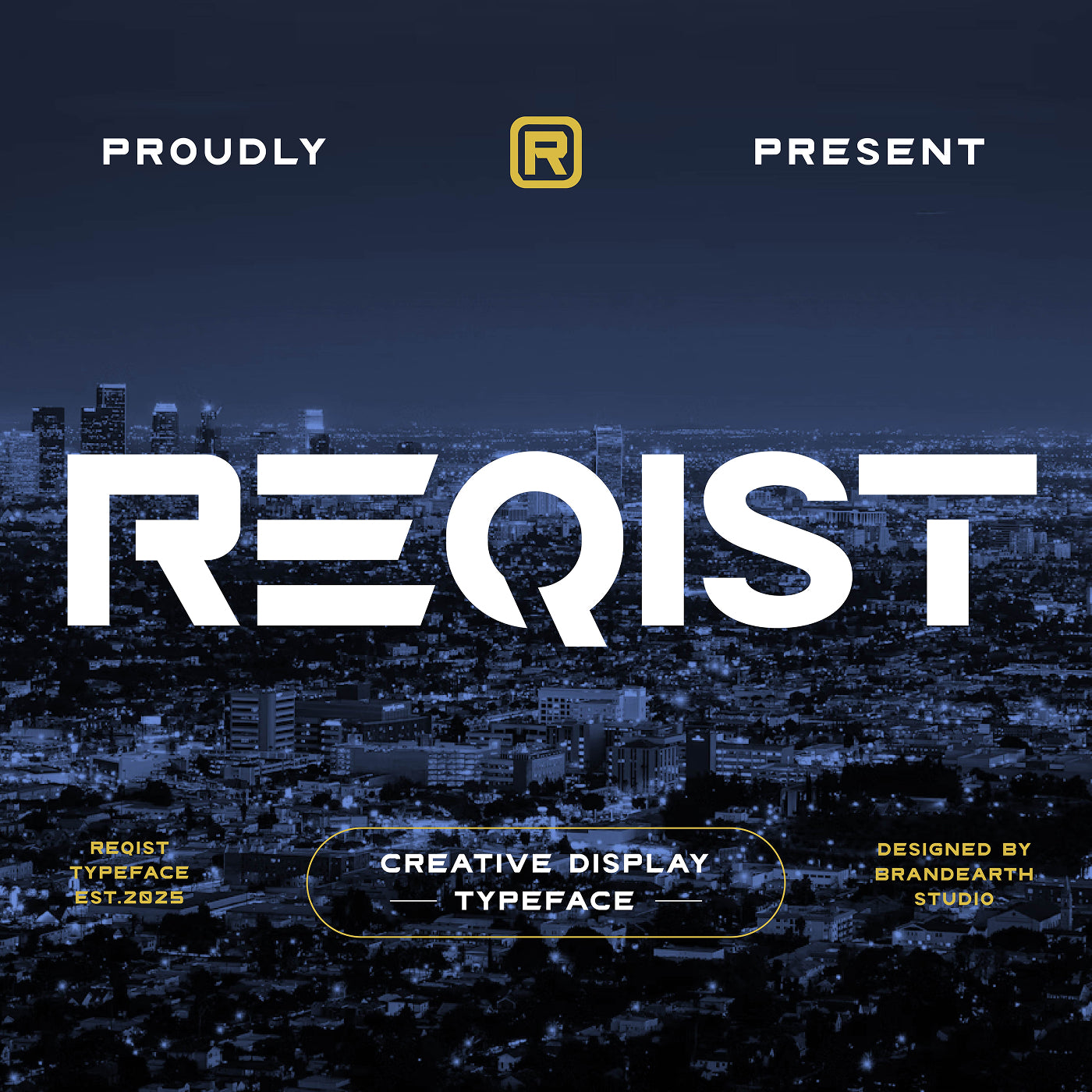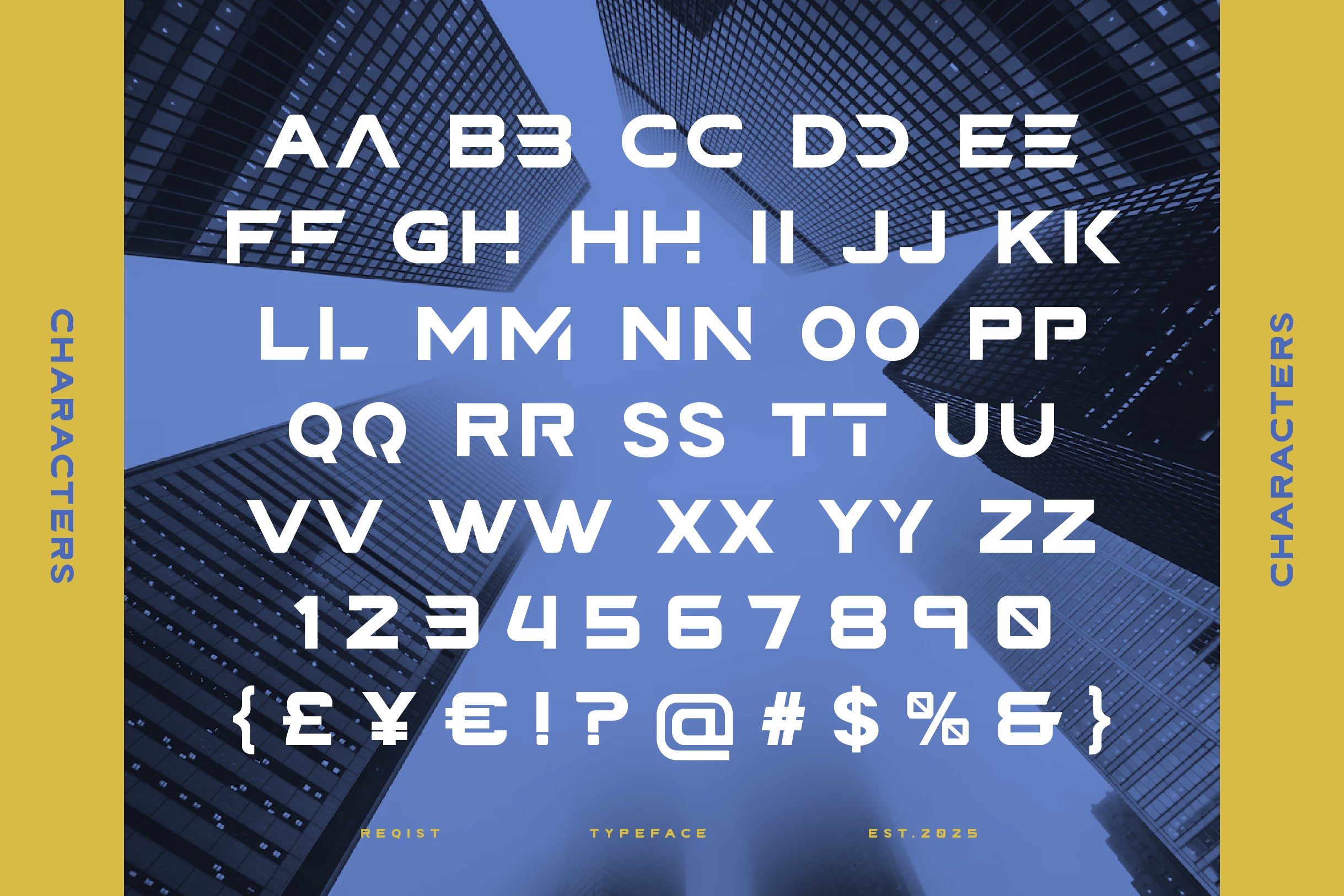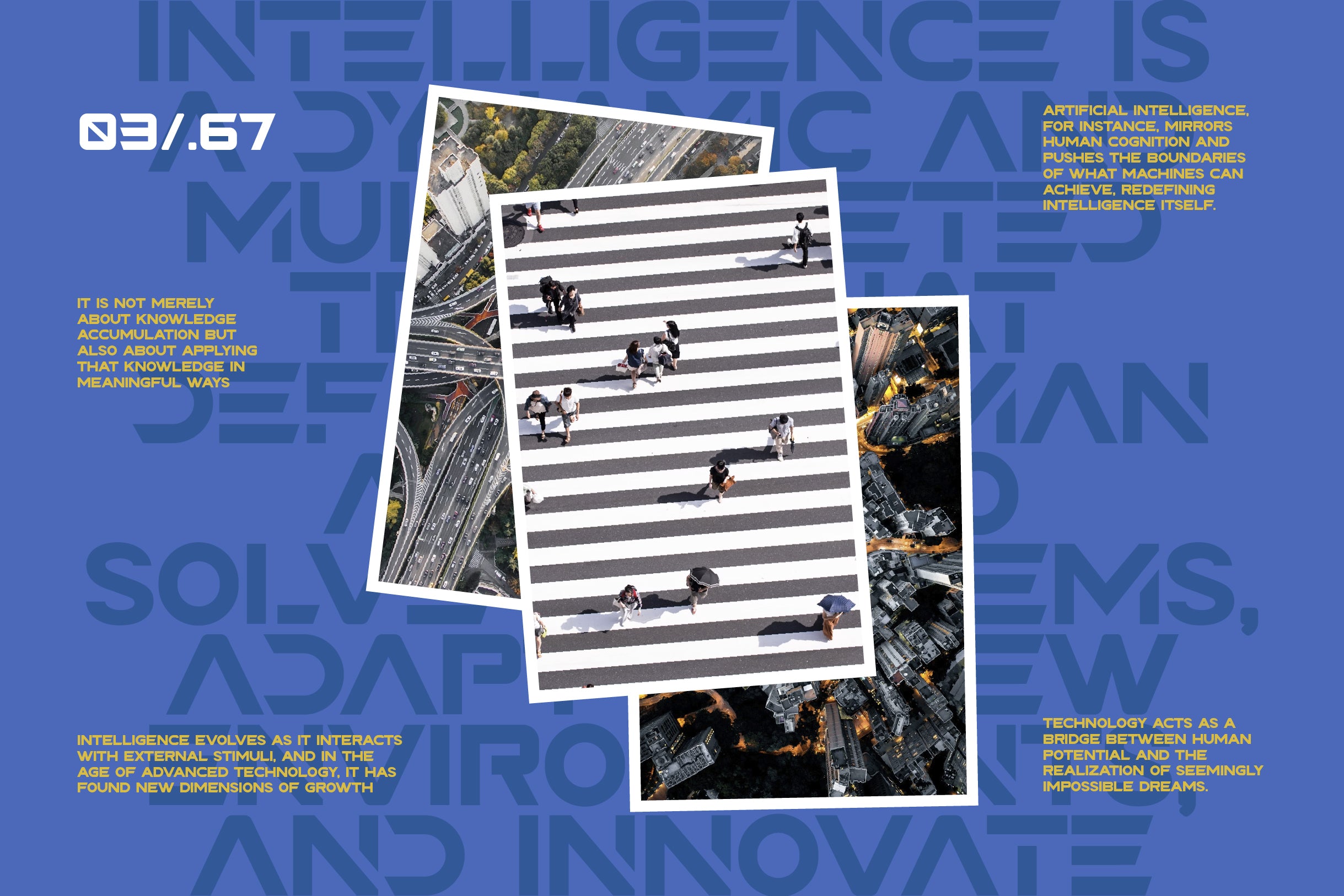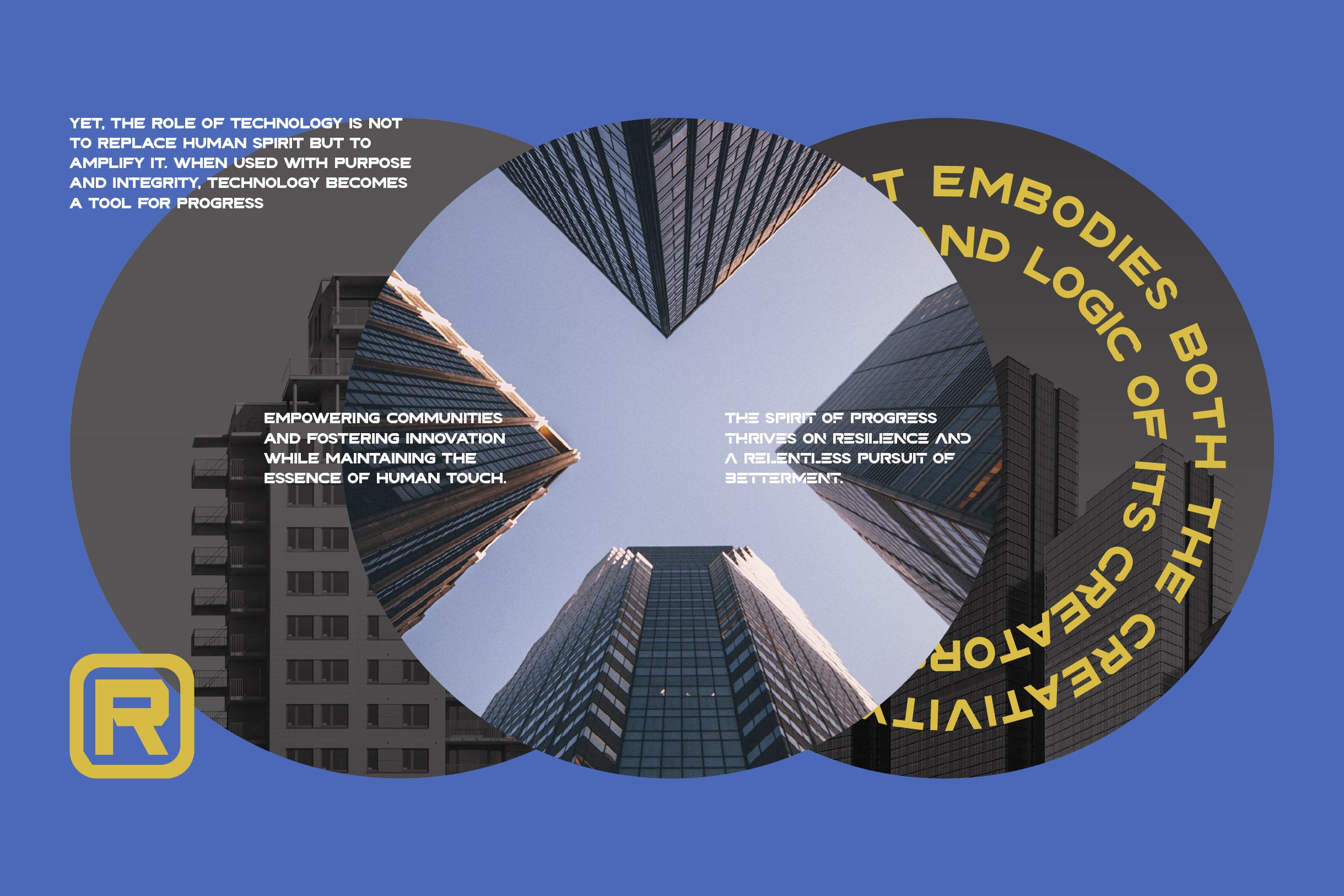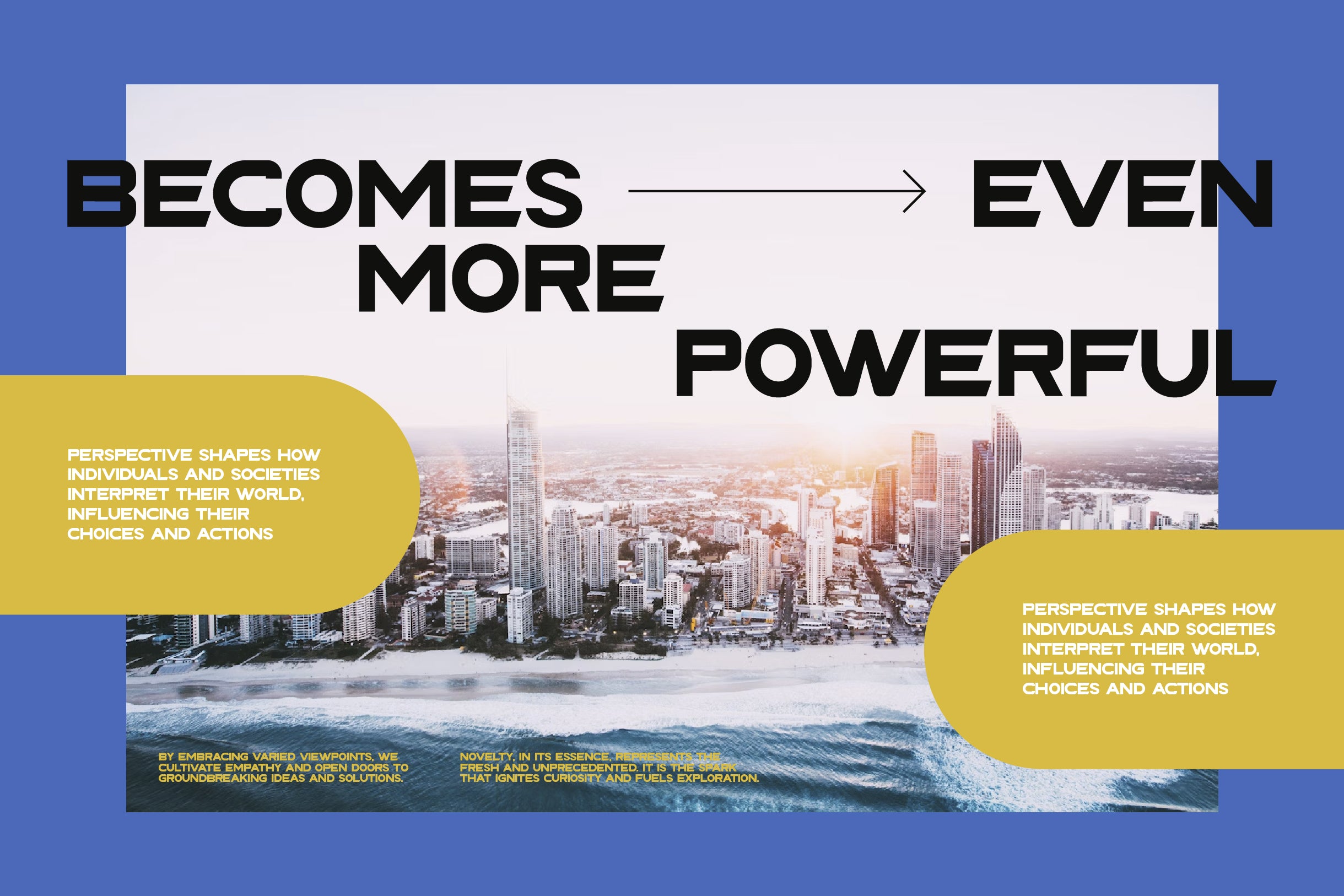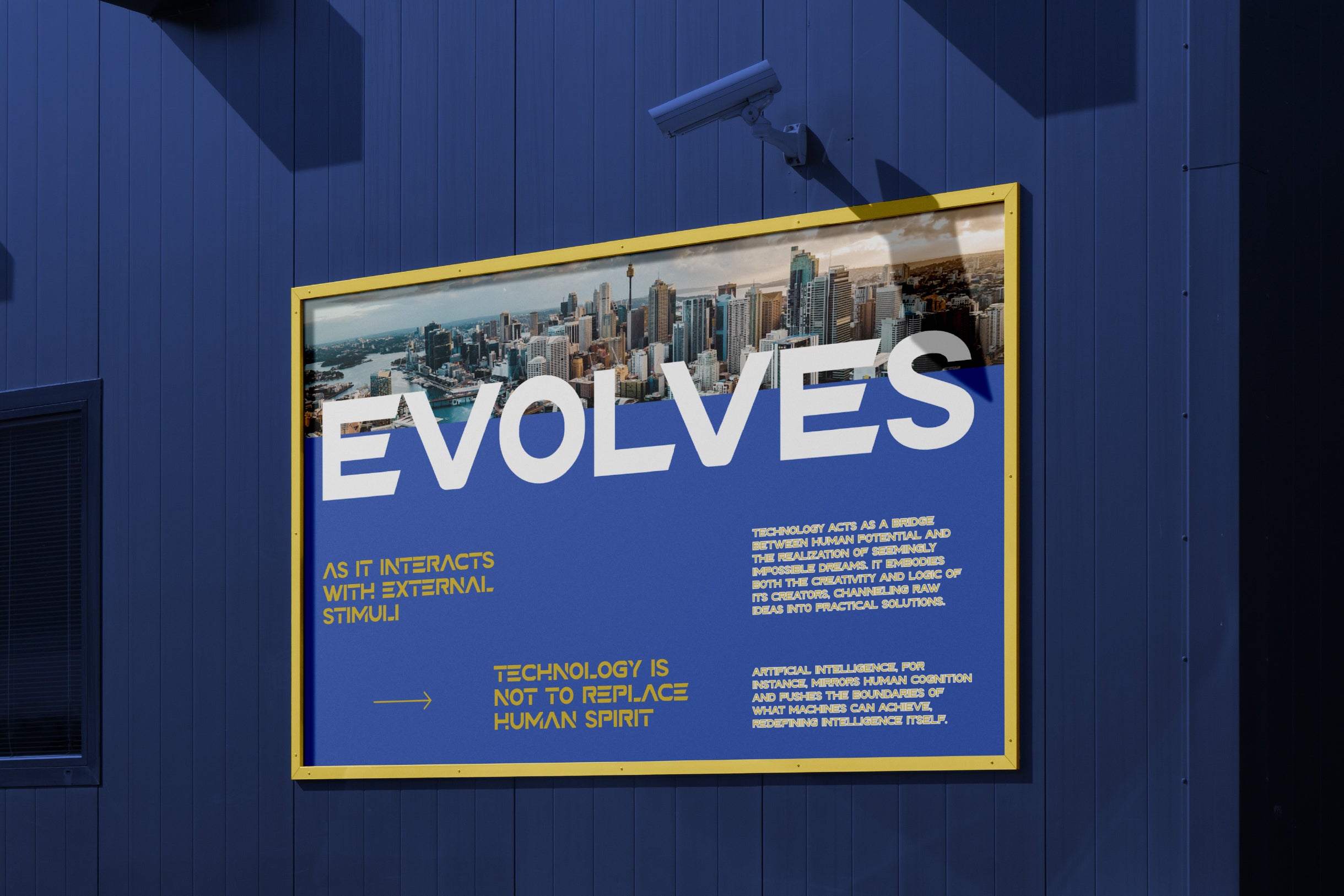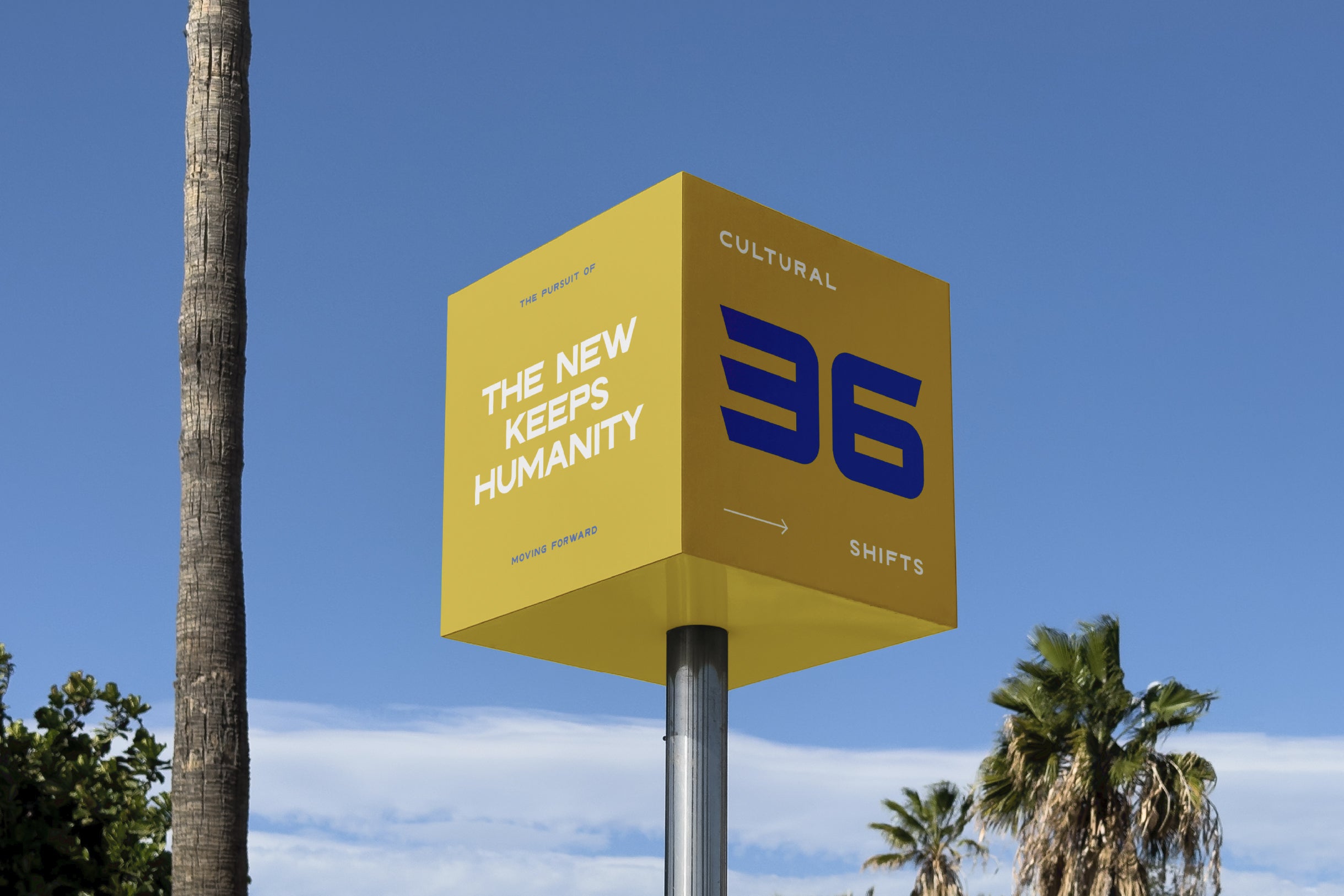
Reqist Creative Display Typeface Font
Reqist is a futuristic-inspired creative display typeface built around geometric letterforms, sharp cuts, and distinctive horizontal interruptions. The characters use a compact, engineered structure with squared terminals and angular details, giving the font a technical and architectural appearance without relying on decorative elements. Its bold construction keeps the lettering highly visible in large sizes, while the unusual cuts and modified character shapes give headlines a recognizable visual signature. The character set includes uppercase letters, numerals, currency symbols, punctuation, and common special characters, providing a practical range for display-focused design work.
Reqist is a geometric display typeface featuring squared terminals, angular cuts, and horizontal interruptions in its letterforms. It includes uppercase and lowercase letters, numerals, punctuation, and special characters, and is available in TTF and OTF formats.